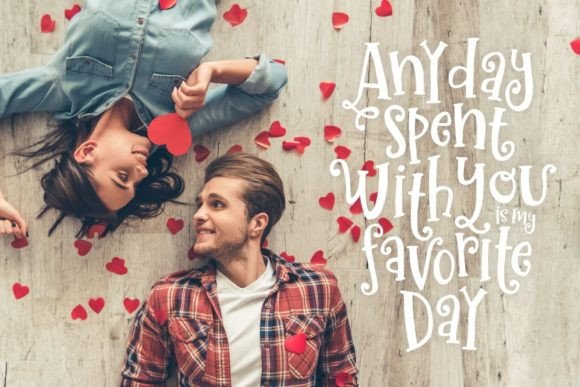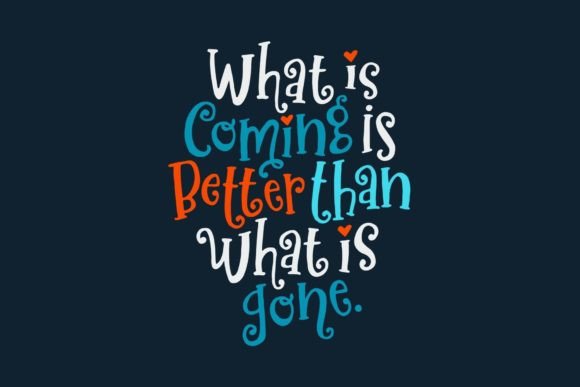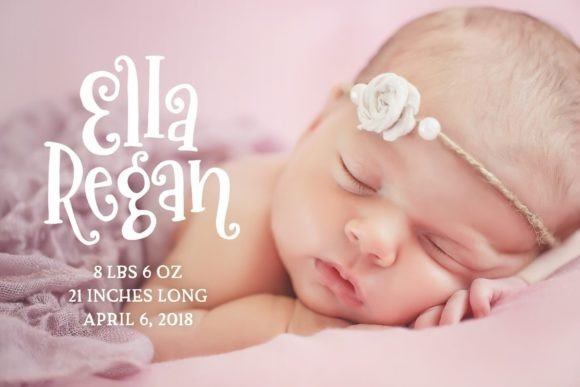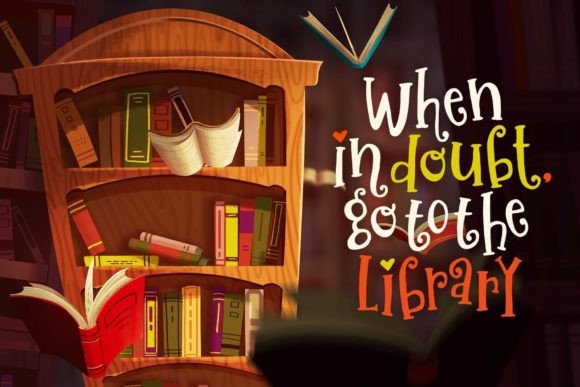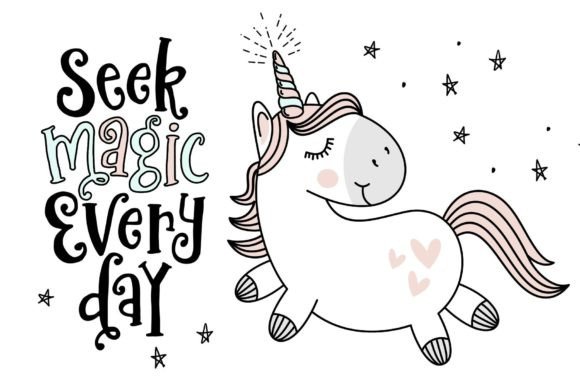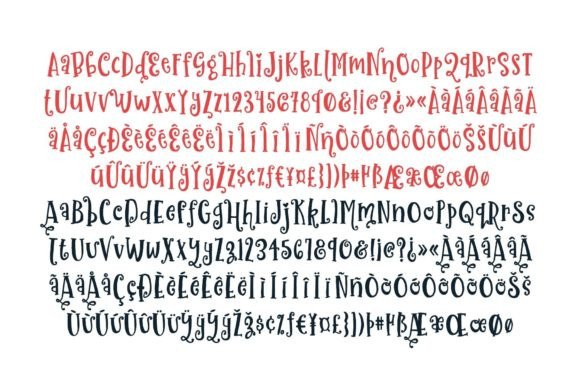
Designing with Love: The Allure of Better Be Lovely Font
As designers, we’ve all been there – stuck on a project, trying to find that perfect font to convey the emotion and tone we’re aiming for. For me, it was a recent wedding invitation design, where I wanted to evoke a sense of romance and whimsy. I spent hours browsing through fonts, but nothing seemed quite right – until I stumbled upon the charming Better Be Lovely Font.
This sweet little serif font is a designer’s dream come true, offering an alternate version to mix and match letters until the look is just right. With its soft, feminine feel, it’s perfect for birth announcements, Valentine’s cards, wedding invites, and more. Whether you’re a seasoned pro or just starting out, the Better Be Lovely Font is a valuable addition to any design toolkit, offering endless possibilities for creative expression.
Better Be Lovely Font Key Features
- Unique Characteristics: Whimsical, elegant script font with a touch of vintage charm
- Kerning and Ligatures: Includes advanced kerning and ligature pairs for a polished, professional look
Designer Review: Better Be Lovely Font
Overall, I was quite pleased with the Better Be Lovely font. It’s a beautiful, elegant script font that exudes sophistication and style ✨. The designer has done an excellent job of creating a unique and eye-catching font that would be perfect for wedding invitations, branding, and other high-end projects.
- The font’s ligatures are well-designed and add a touch of elegance to the overall look ✨.
- The font is highly legible, even at smaller sizes, making it perfect for body text and headings.
- The font’s OpenType features allow for a wide range of customization options, making it easy to get the look you want.
However, I did notice a few limitations ⚠️:
- The font may not be suitable for projects that require a more modern or edgy look, as it has a distinctly vintage feel.
- The font’s bold weight may be a bit too bold for some projects, as it can overpower other design elements.
- The font’s italic weight may not be as well-designed as the regular weight, which can make it stand out in a bad way.
Overall, I would highly recommend the Better Be Lovely font for designers looking for a elegant and sophisticated script font ✨. While it may have a few limitations, its unique features and customization options make it a valuable addition to any designer’s toolkit.
The Better Be Lovely font is ideal for creative projects, such as invitations, greeting cards, and social media graphics. Its elegant and playful design makes it perfect for adding a touch of sophistication to your designs.
To get the most out of the Better Be Lovely font, experiment with different font sizes, colors, and combinations to create visually appealing designs. You can also pair it with other fonts to create a unique and eye-catching look.